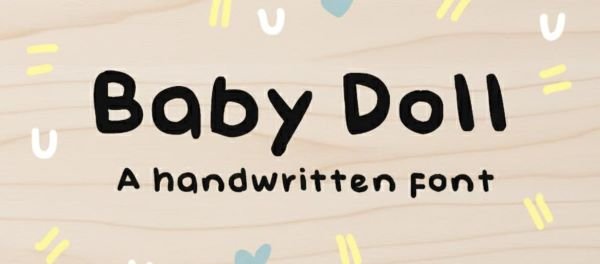
Baby Doll Font by Denne is a handwritten typeface whose soft, unhurried strokes carry an unmistakable childlike sweetness. Every character has a gentle simplicity that feels less designed and more discovered — as though someone jotted it down in a moment of pure, uncomplicated happiness.
Baby shower invitations, greeting cards, nursery branding, and any project where warmth and innocence need to come through clearly will find exactly the right companion here. Free for personal use.